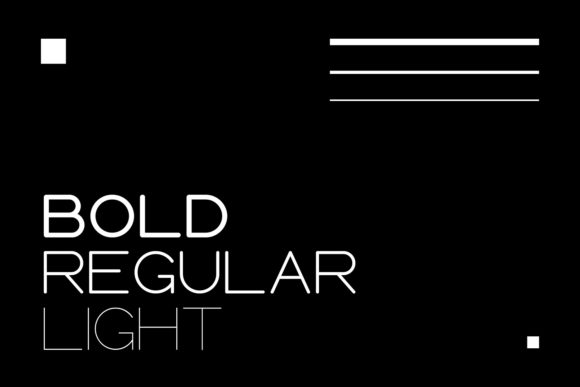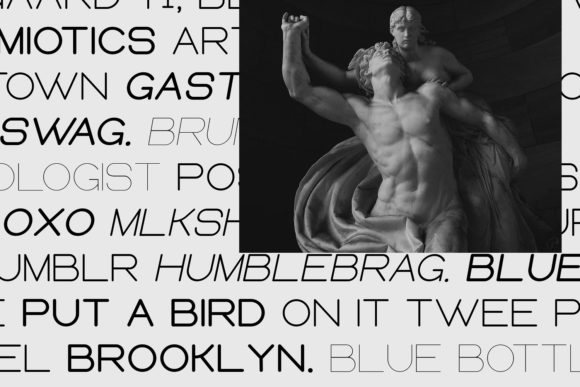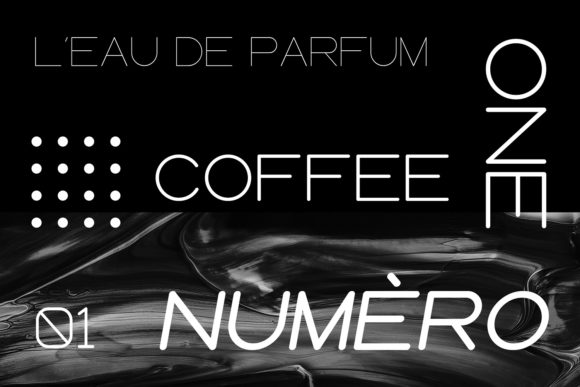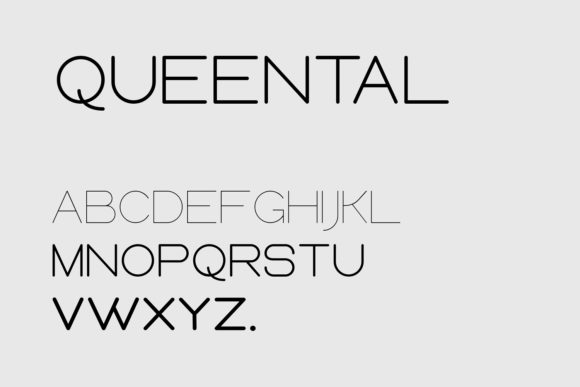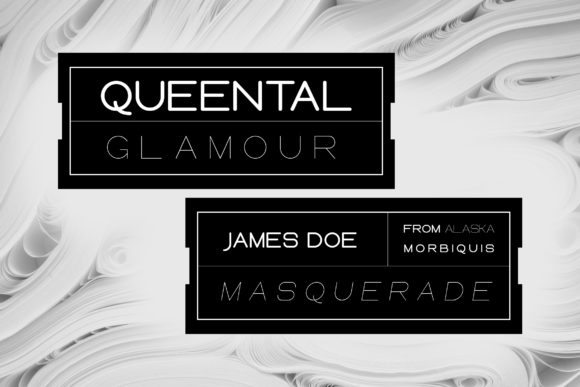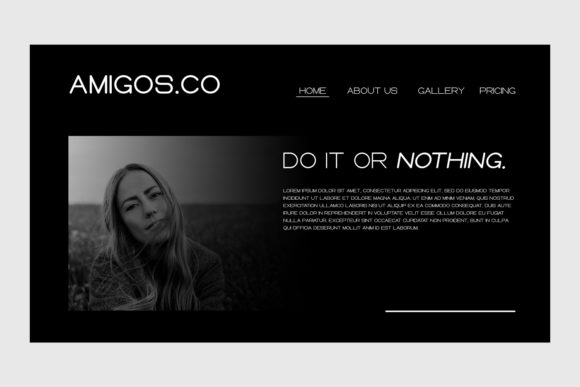
Introduction to Queental Font
Queental is an elegant and smart sans serif font family, perfectly suited for elevating any design idea.
Queental is an elegant and smart sans serif font family, perfectly suited for elevating any design idea!